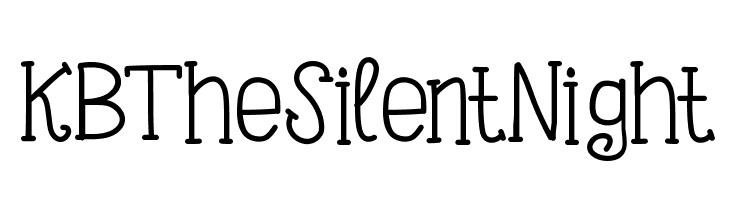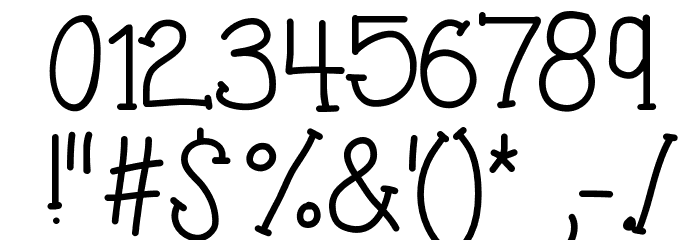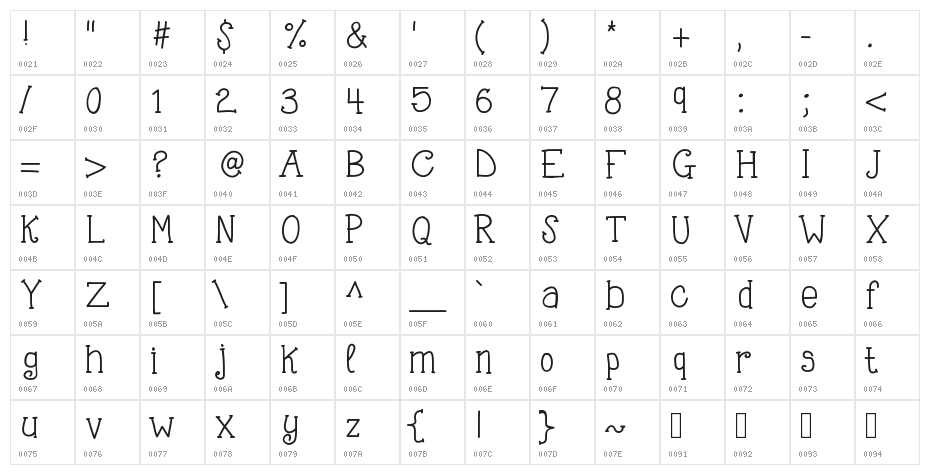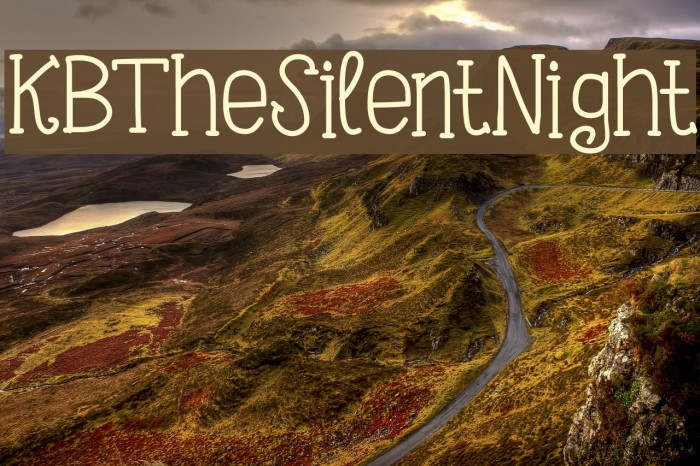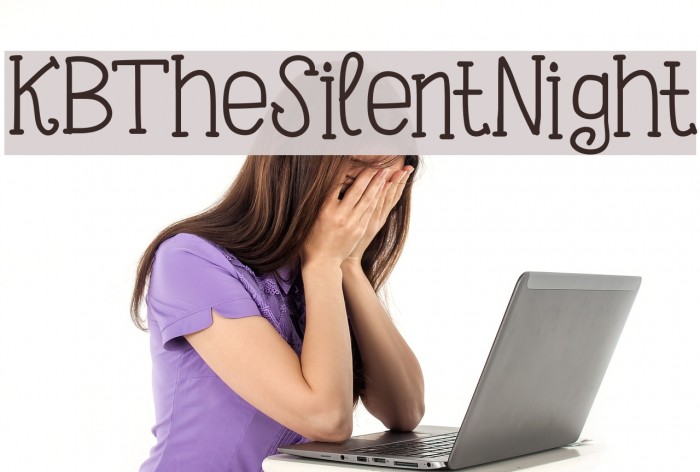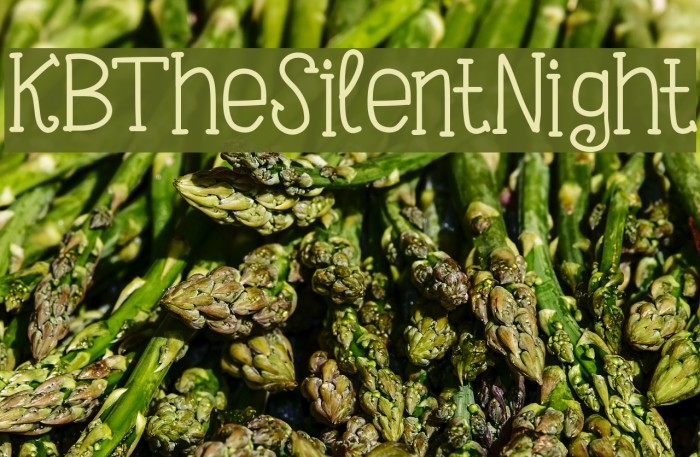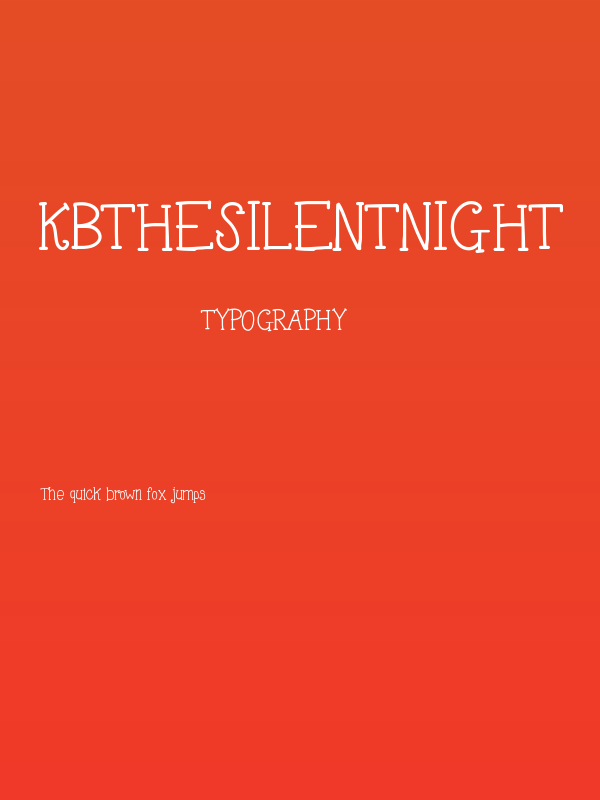
KBTheSilentNight Font
KBTheSilentNight Description
This font features a playful and whimsical design, characterized by its hand-drawn appearance and slightly irregular lines. The uppercase letters are tall and narrow, with a slight curve that adds a friendly touch. Lowercase letters maintain a consistent style, with rounded edges and a casual flow. The numerals are distinct and easy to read, matching the overall playful aesthetic. Special characters are creatively designed, fitting seamlessly with the rest of the font. This font's unique style makes it suitable for projects that require a fun and informal tone.
A playful, hand-drawn font with a whimsical and friendly style from Uncategorized fonts.
- Proposed Projects: Ideal for children's books, greeting cards, playful branding, and casual invitations.
- Overall Style: Playful
- Use Case: Headlines, Logos, Informal text